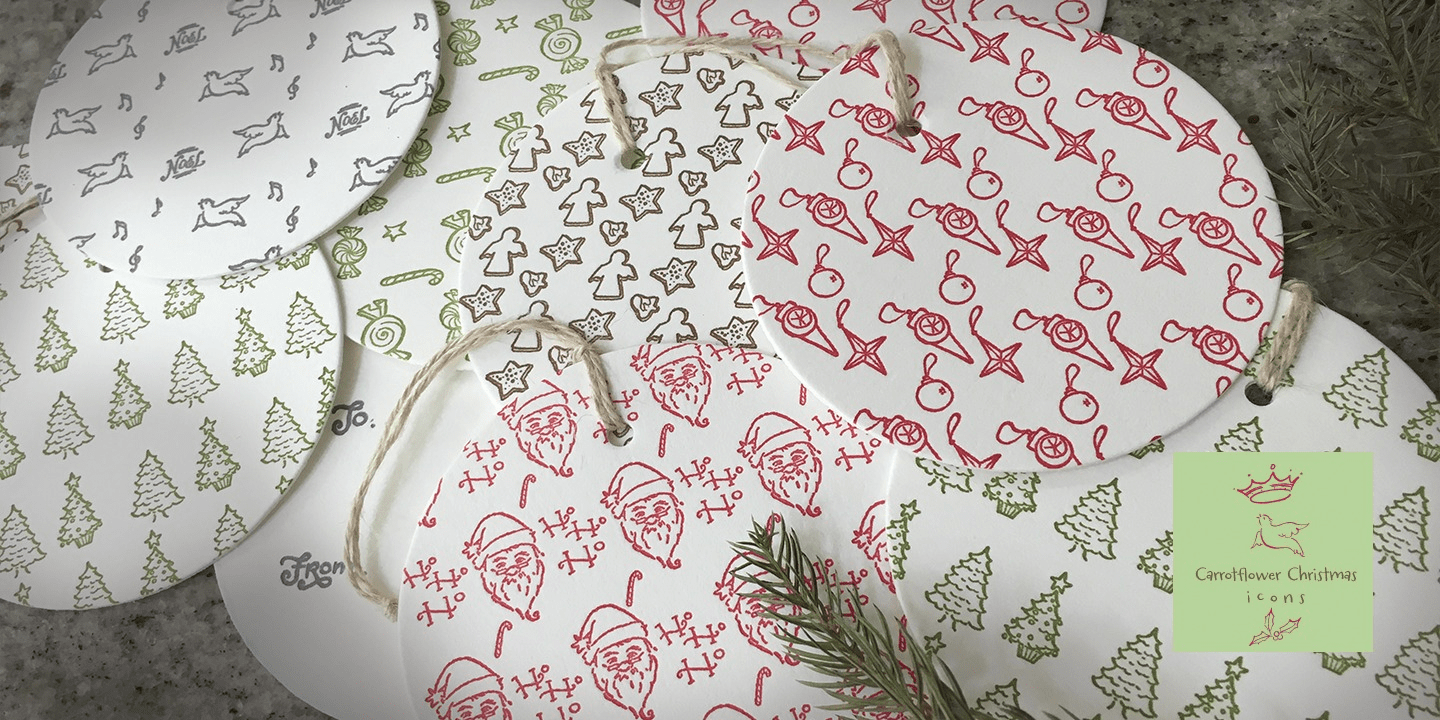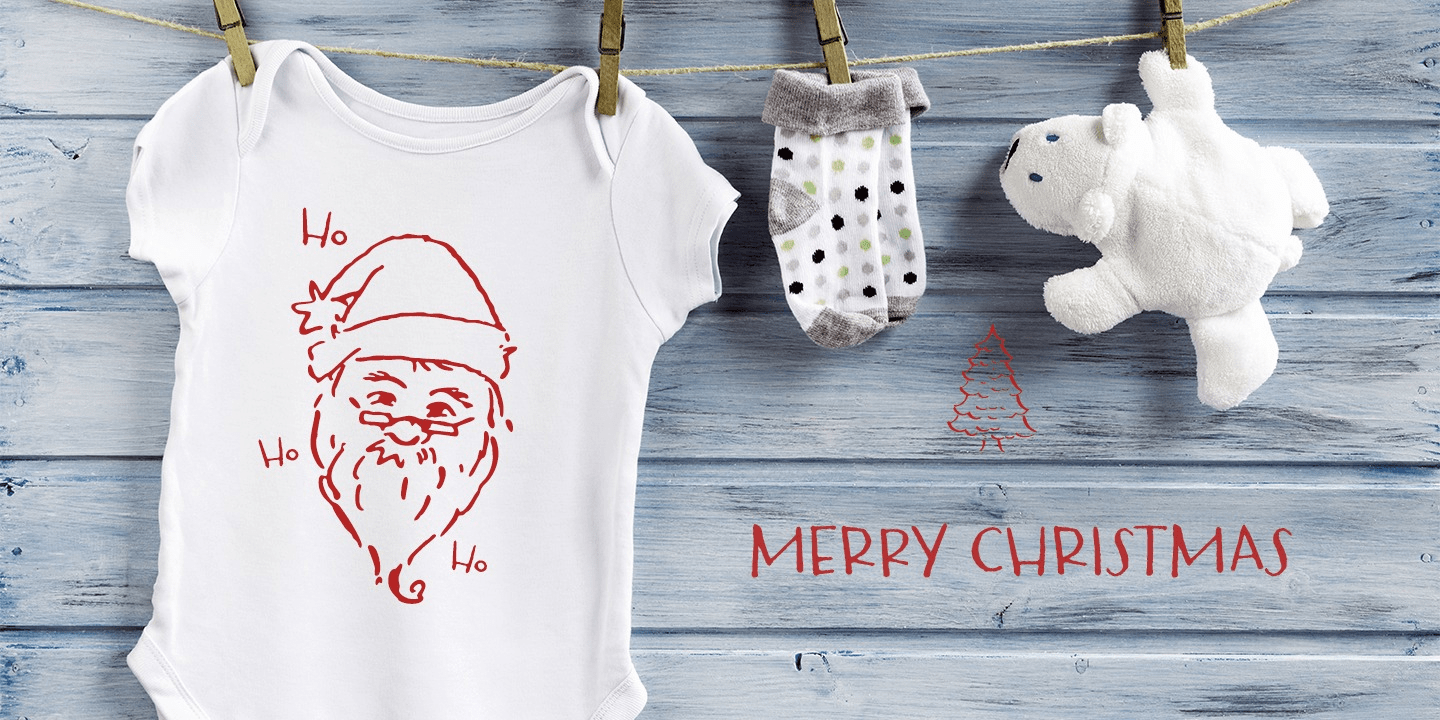
Carrotflower Christmas
Stuffed with goodness, Carrotflower Christmas icons are surefire delights. A collection of 49 various icons including holiday lights, christmas cookies, holly, poinsetta, snowman, presents, stockings, letters to Santa and of course, Santa Claus himself.
Pair with Carrotflower font for instant gratification, you don't have to wait 'til Christmas to enjoy this package.